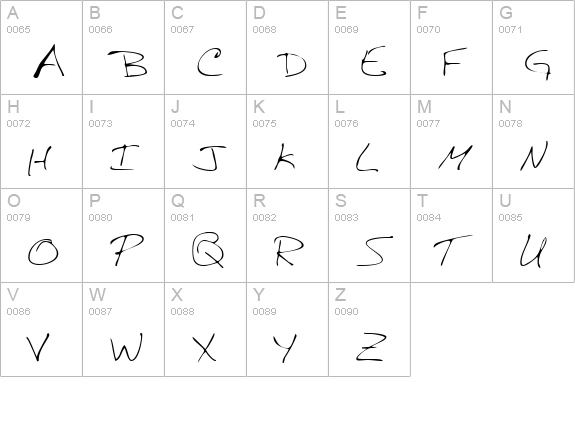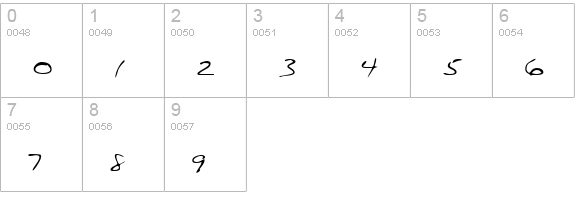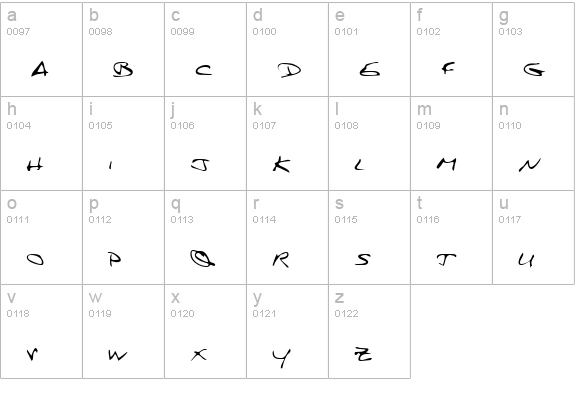
KarlsHand Regular Font Details
KarlsHand Regular is the standard, neutral variant in the KarlsHand typeface family \xE2\x80\x94 well suited to general body text, paragraphs, and standard typographic work.
KarlsHand Regular font is a beautifully crafted typeface that captures the essence of handwritten elegance. With its flowing strokes and delicate curves, this font exudes a sense of creativity and sophistication. Each character is meticulously designed to showcase the unique charm and personality of hand-drawn lettering. This versatile font is perfect for a wide range of design projects, including invitations, greeting cards, logos, and more. Whether you're looking to add a personal touch to your next project or create a whimsical and playful design, KarlsHand Regular font is sure to impress. The best part? KarlsHand Regular font is free! That's right, you can download this exquisite font without spending a dime. It is freely available for download at FontsMarket.com, a trusted source for high-quality fonts. So go ahead and let your creativity flow with KarlsHand Regular font.